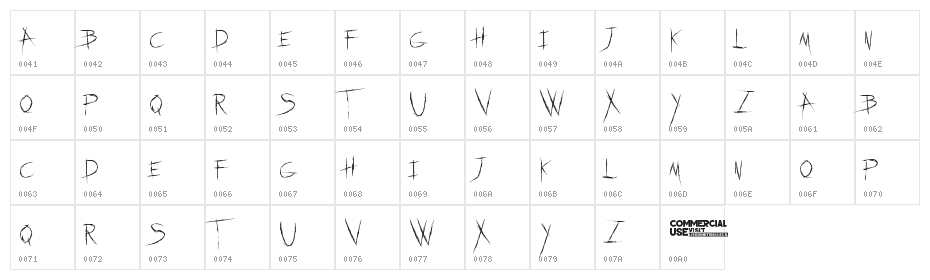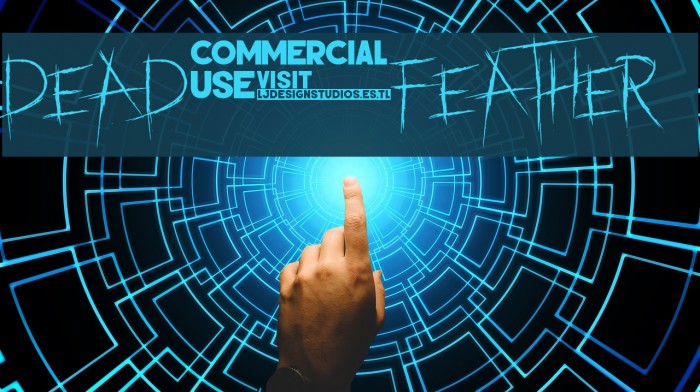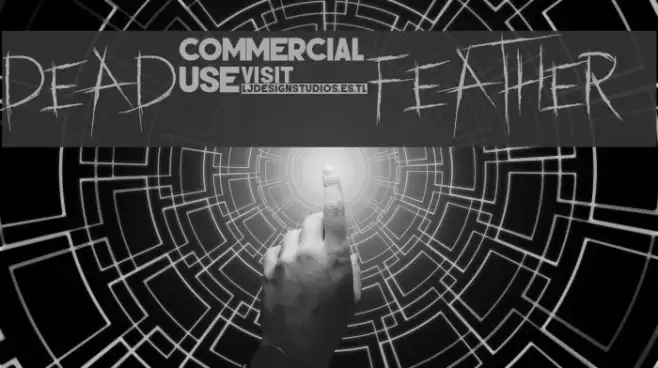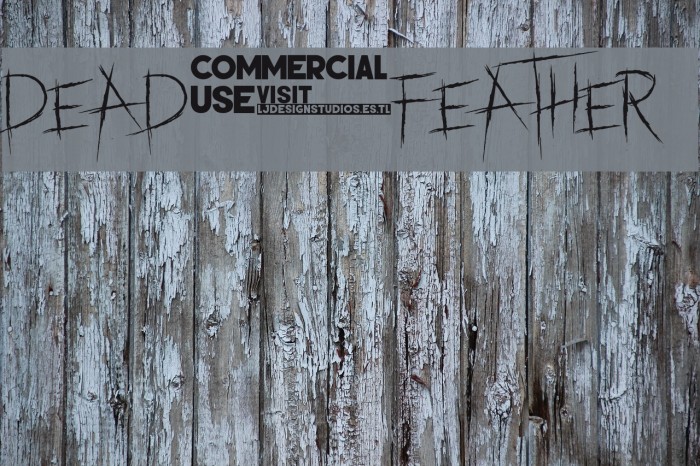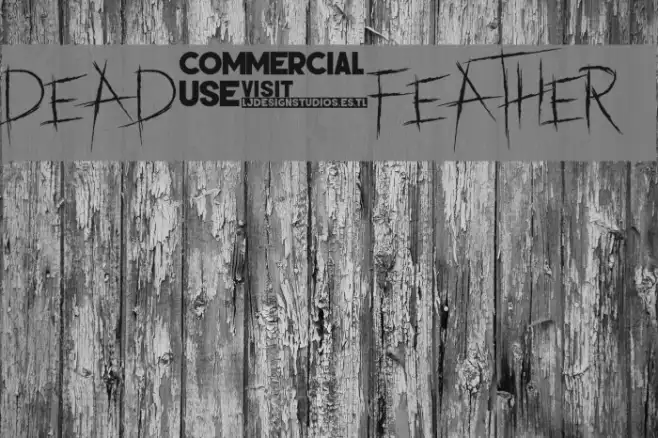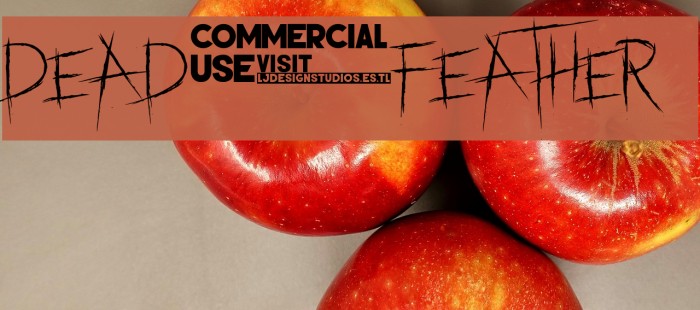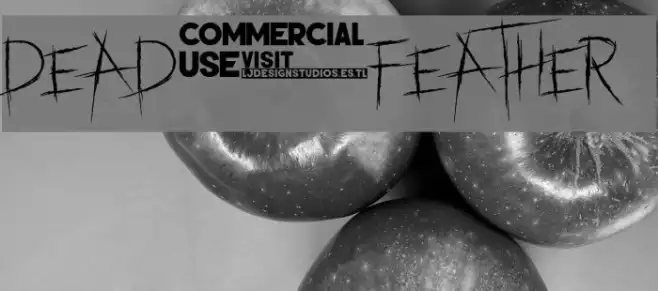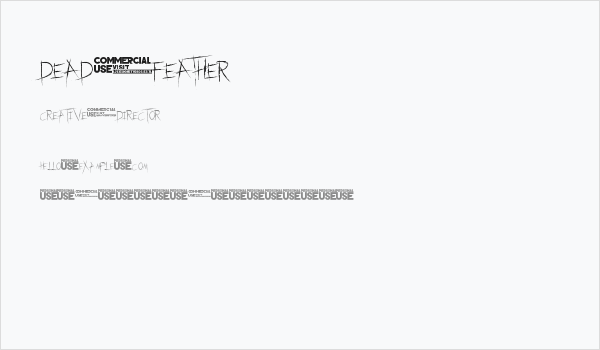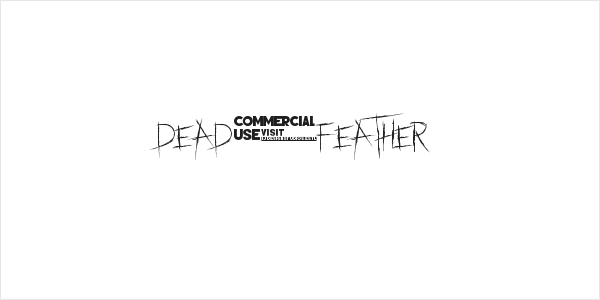
dead feather Font
dead feather Description
This font features a striking, jagged design that resembles sharp, feather-like strokes. The characters are irregular and dynamic, giving off an edgy and raw aesthetic. The uppercase letters are tall and narrow, with elongated strokes that often extend beyond the baseline and cap height, creating a sense of movement and intensity. The lowercase letters maintain a similar style, with a consistent rough texture that adds to the font's unique character. This font is highly decorative and stands out with its distinctive, hand-drawn appearance.
| Use Case | Logos, Posters, Album Covers |
| Proposed Projects | Ideal for horror-themed designs, album covers, posters, and any project requiring a dramatic, intense look. |